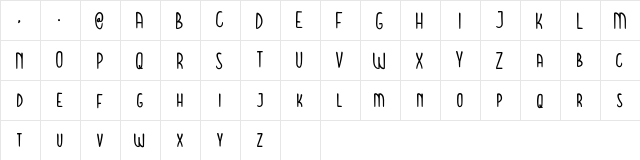
Venusufr Regular
Design Context for Venusufr Typeface
Venusufr offers clean, dependable letterforms without strong stylistic allegiance, making it a practical choice for designers who need flexibility.
Pro Tip: Pair Venusufr with a font of contrasting weight or personality to build a more expressive typographic hierarchy.